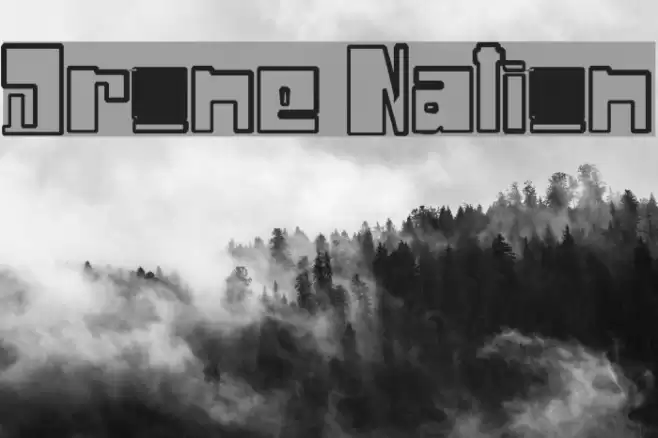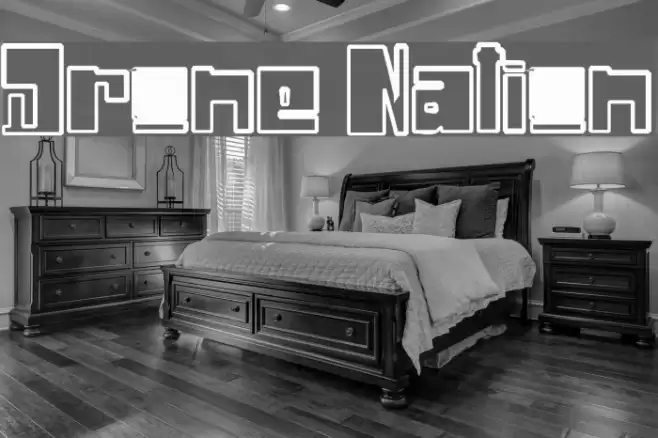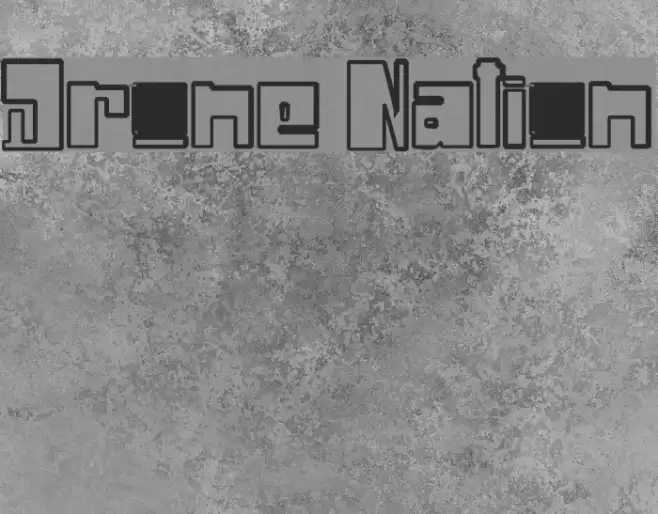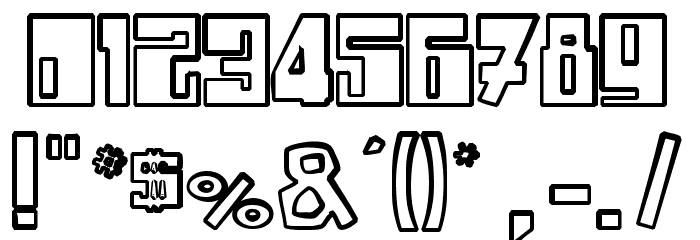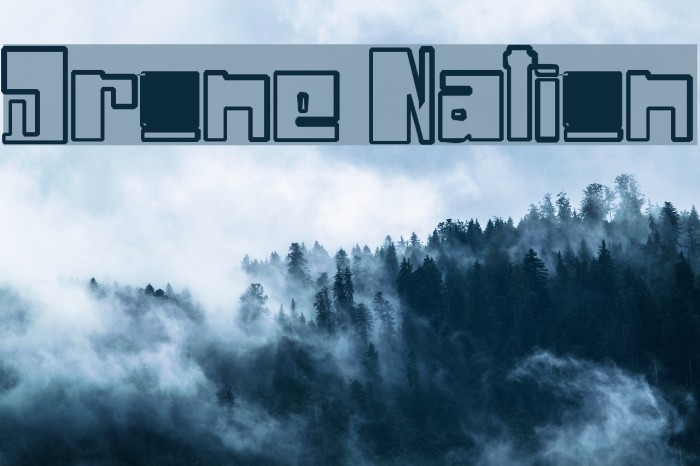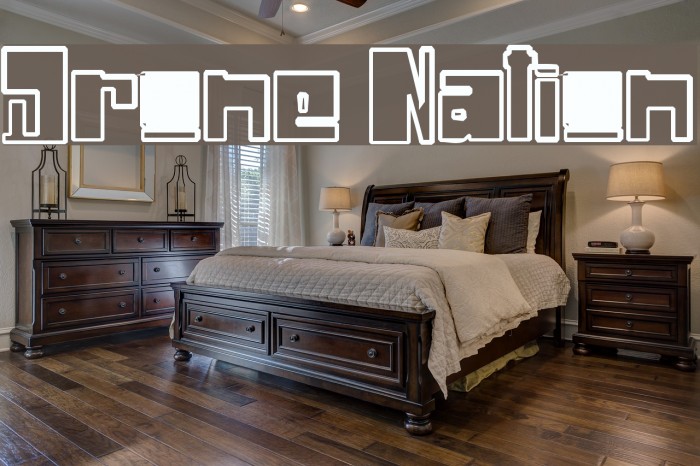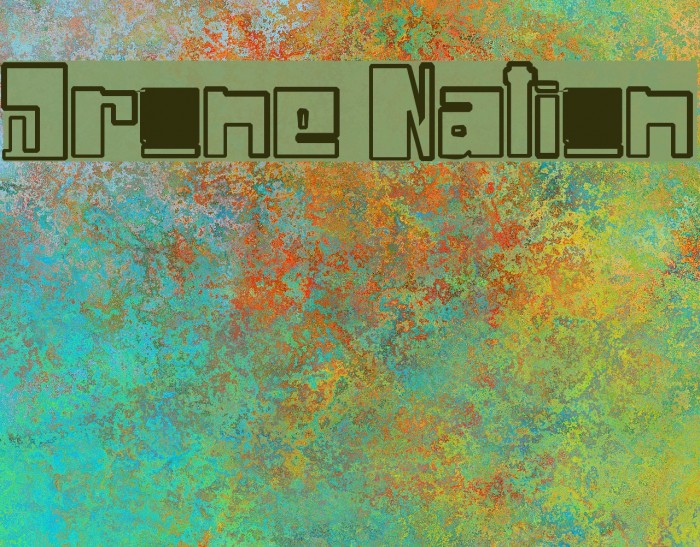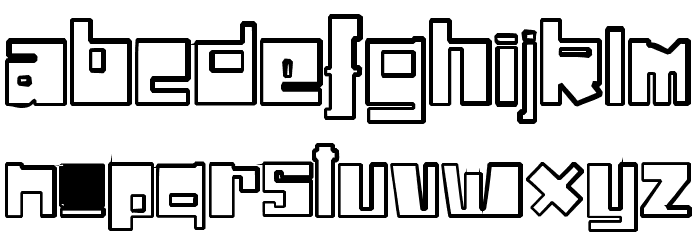
Drone Nation Font
Drone Nation Description
This font features a bold, geometric design with a distinct outline style. Each character is constructed with thick, uniform lines that create a strong visual impact. The uppercase and lowercase letters maintain a consistent blocky appearance, giving the font a cohesive and modern look. The numerals and special characters follow the same design principles, ensuring uniformity across all glyphs. The font's unique style makes it suitable for projects that require a bold and eye-catching typeface.
A bold, geometric outline font with a modern, blocky design from Uncategorized fonts.
- Proposed Projects: Ideal for use in posters, logos, video game graphics, and any project needing a striking, modern typeface.